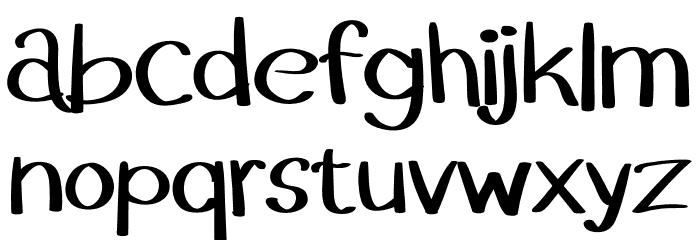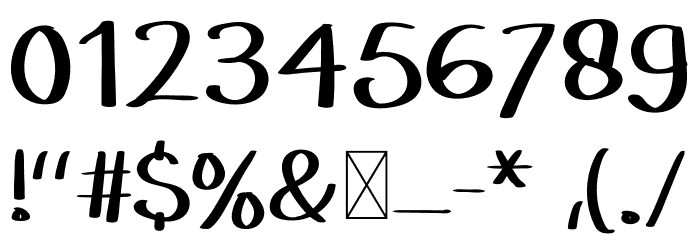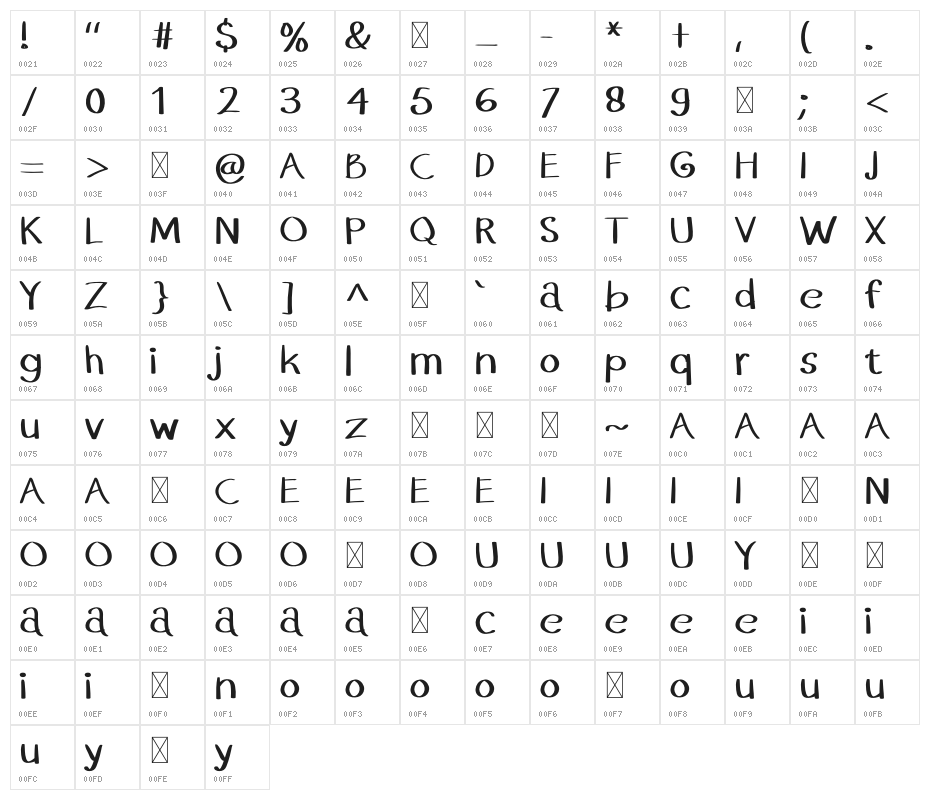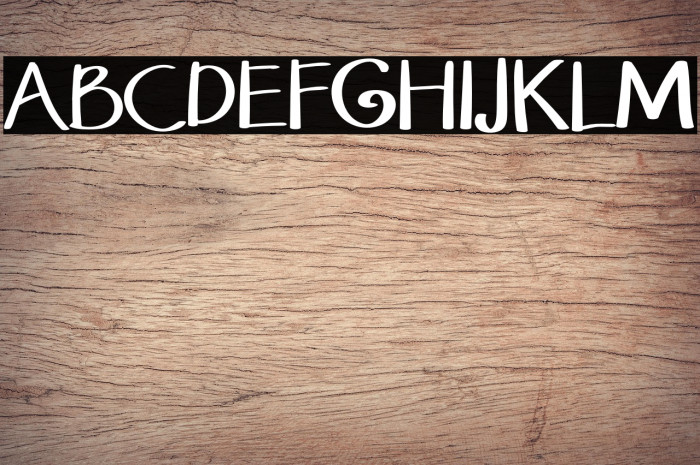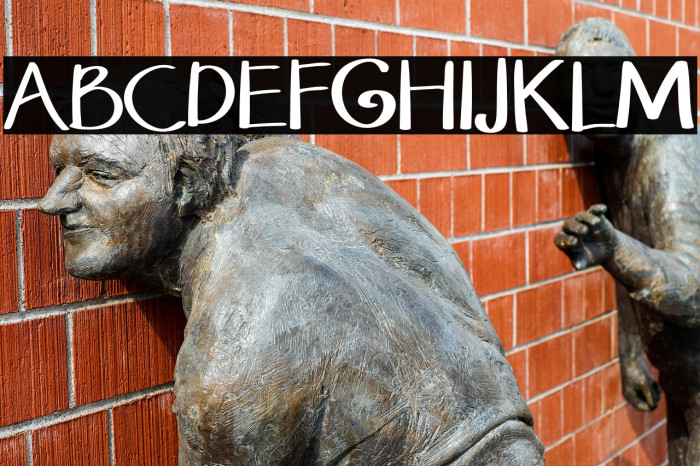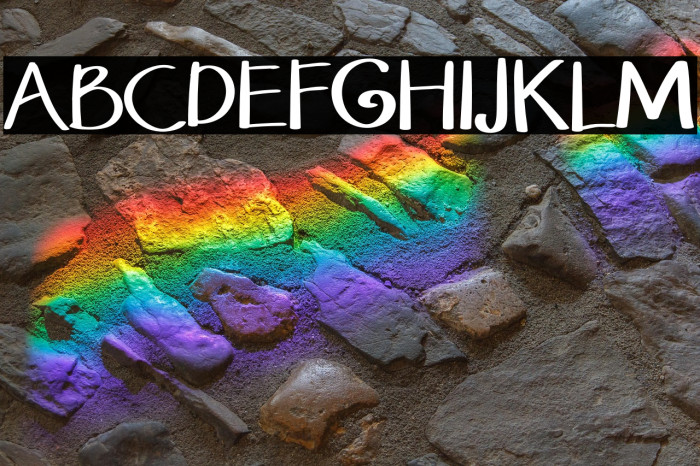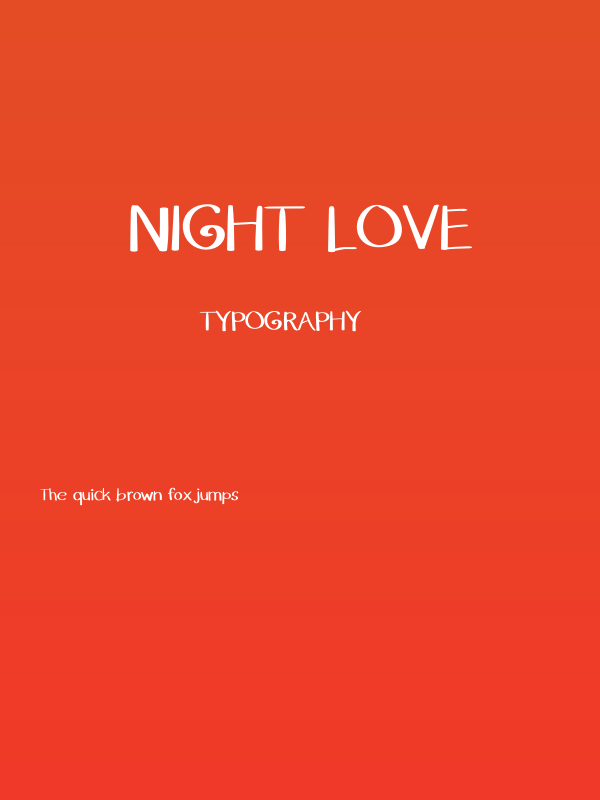
NIGHT LOVE Font
This font features a playful and whimsical style with a handwritten feel. The letters are slightly irregular, giving it a casual and friendly appearance. The uppercase letters are bold and rounded, while the lowercase letters maintain a consistent flow with a touch of elegance. The numbers are clear and easy to read, matching the overall style of the alphabet. Special characters are creatively designed, adding to the font's unique charm. This font is perfect for projects that require a personal touch, such as invitations, greeting cards, or playful branding.
A playful, handwritten font with a whimsical and friendly style.
- Font: NIGHT LOVE
- Proposed Projects: Ideal for invitations, greeting cards, playful branding, and personal projects.
- Category: Handwritten
- Overall Style: Playful
- Use Case: Headlines, Logos, Invitations